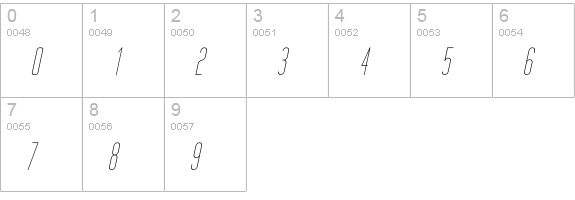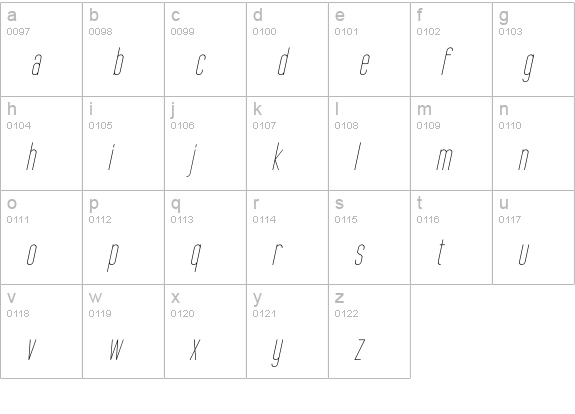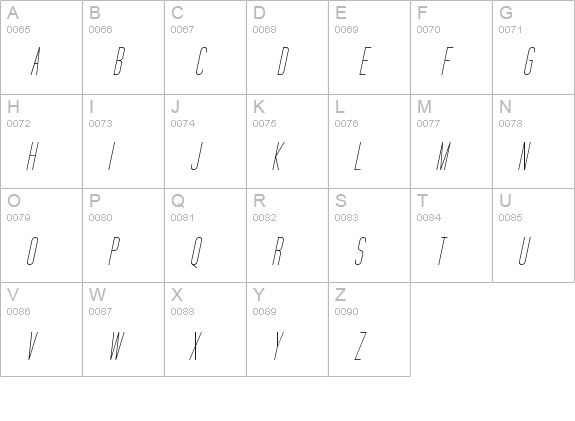
Tall Films Oblique Font Details
Tall Films Oblique is a distinctive, italic variant in the Tall typeface family \xE2\x80\x94 well suited to design and typography projects.
Tall Films Oblique font is a sleek and modern typeface that exudes elegance and sophistication. Its tall and slender letterforms give off a sense of grace and style, making it perfect for projects that require a touch of refinement. The slanted design of the font adds a dynamic and energetic feel, making it ideal for conveying a sense of movement and creativity. This font is versatile and can be used for a wide range of design projects, from branding and advertising to editorial and packaging. Its clean and sharp lines ensure readability even at smaller sizes, while still making a bold statement when used in headlines or titles. Best of all, Tall Films Oblique font is completely free to download at FontsMarket.com. This means that you can access this high-quality font without having to spend a dime, making it an excellent choice for designers on a budget or anyone looking to add a touch of sophistication to their projects. Download Tall Films Oblique font today and elevate your designs with its elegant and stylish aesthetic.